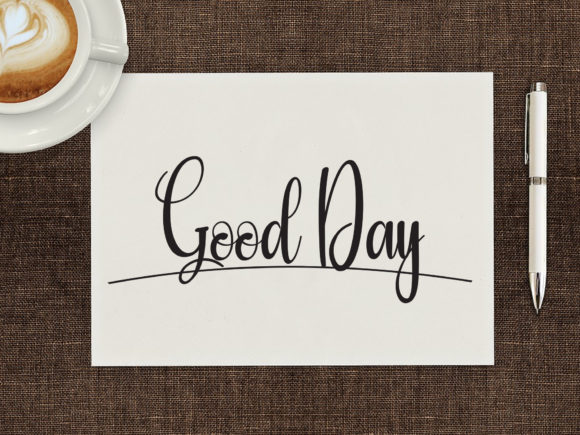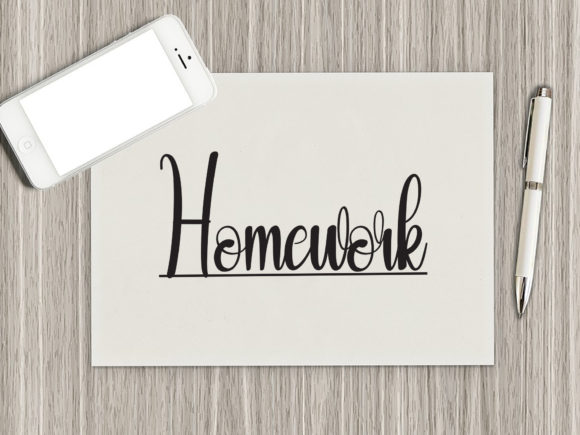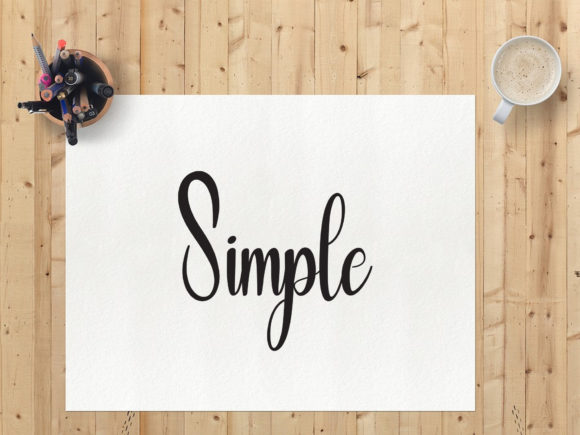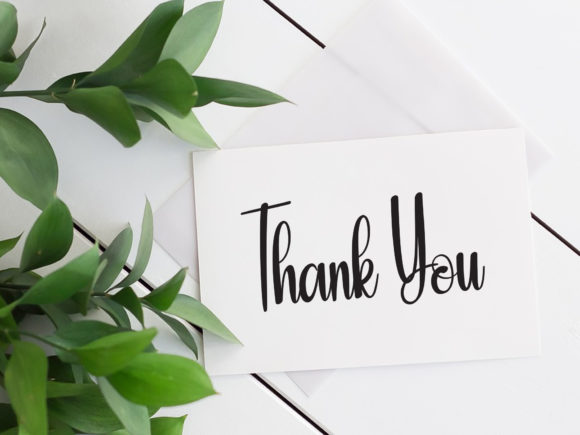
The Delightful Adella Font: A Designer’s New Best Friend
I still remember the time I was working on a project, pouring my heart and soul into creating the perfect poster. But, as I was browsing through fonts, I just couldn’t seem to find the right one. That’s when I stumbled upon Adella Font, and it was love at first sight! 💕 This delicate handwritten font has a lovely flow that instantly added a touch of joy to my design. In this article, I’ll share my experience with Adella Font, its features, and how you can make the most of it in your designs.
An Honest Review of Adella Font
What I Love About Adella Font ✨
• 💫 Adella Font is perfect for writing quotes, titles, brand names, book covers, posters, or any creation that requires a touch of elegance and joy.
• ✅ Its delicate and handwritten style makes it stand out from more traditional fonts.
• 🌈 The font features a lovely flow, making it easy to read and visually appealing.
• 🤝 Adella Font is versatile and can be used for a wide range of design projects.
While Adella Font is a beautiful addition to any design project, there are a few things to keep in mind:
• 🤔 As with any handwritten font, it may not be suitable for body text or long paragraphs.
• ⚠️ Some characters may require manual kerning for optimal spacing.
The Story Behind Adella Font
Adella Font was designed with the intention of creating a beautiful and elegant handwritten font that would add a touch of joy to any design project. The designer aimed to create a font that would be versatile and easy to read, while also featuring a unique and distinctive style.
Font Name Adella Font
Q: What is Adella Font best used for?
A: Adella Font is perfect for writing quotes, titles, brand names, book covers, posters, or any creation that requires a touch of elegance and joy.
Q: Is Adella Font suitable for body text?
A: While Adella Font is a beautiful font, it may not be suitable for body text or long paragraphs due to its delicate and handwritten style.